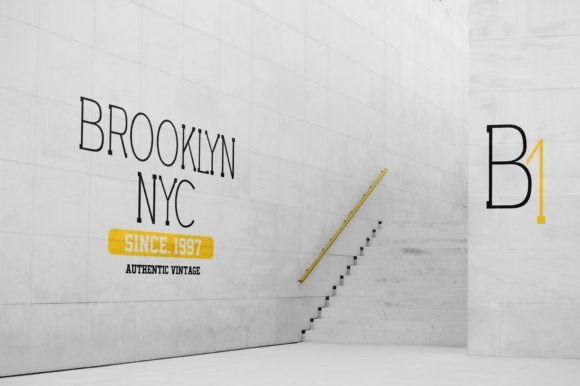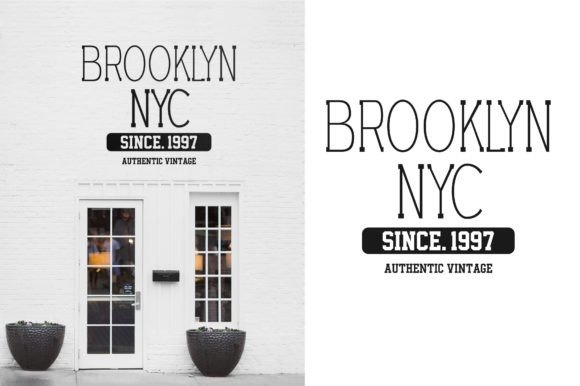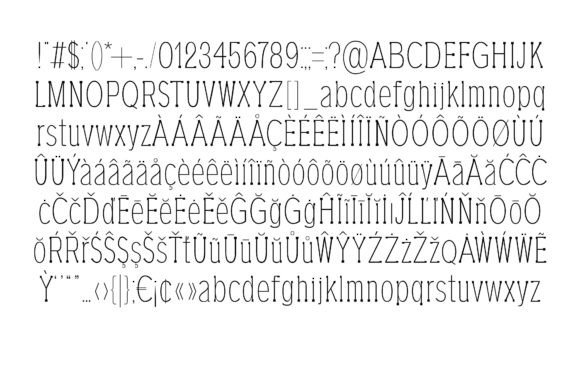
Brooklyn
Brooklyn: A Beautiful and Delicate Slab Serif Typeface
Brooklyn is a beautiful, delicate, and thin slab serif typeface. Its delicate thin aspect renders it very clean and elegant. It fits really well in various contexts such as packaging design, perfume design, fashion design, magazine covers, large-scale titles, and more. Use it confidently in your creation, and you will notice the fresh look it’s able to add to your designs.
Key Features of Brooklyn
• Delicate Design: Offers a thin and elegant look suitable for sophisticated applications.
• Slab Serif Structure: Features subtle serifs that add refinement and style.
• Clean Aesthetic: Brings a fresh and modern feel to designs.
• Versatile Application: Ideal for both print and digital media projects in various industries.
Ideal Uses for Brooklyn
Brooklyn’s unique characteristics make it particularly well-suited for:
When incorporating Brooklyn into your designs, consider these tips:
• Use for headlines or large text to showcase its delicate features.
• Experiment with different sizes to highlight the font’s thin and elegant style.
• Consider pairing with bolder sans-serif fonts for body text to create contrast.
• Utilize its clean aesthetic to create sophisticated and modern designs.
Brooklyn is an excellent choice for designers looking to add a beautiful and delicate slab serif font to their typographic toolkit. Its ability to bring elegance and freshness to various design projects makes it stand out in the world of typography. Whether you’re working on packaging for luxury products, creating magazine layouts, or developing branding for fashion labels, Brooklyn offers the perfect blend of sophistication and modernity.
Furthermore, Brooklyn’s unique design allows it to shine in various contexts. From perfume labels to large-scale titles, this font can elevate your projects with its distinctive style. Its thin yet readable appearance works particularly well in designs that aim to convey a sense of refinement and contemporary elegance.
In conclusion, Brooklyn is a font that truly captures the essence of delicate beauty in modern typography. Its versatility across different industries showcases its adaptability to various design needs. For those looking to add a touch of sophisticated charm to their work, Brooklyn can enhance themed creations with its distinctive style. It’s the perfect choice for designers seeking to make a refined, stylish impact across a wide range of creative projects in industries that value elegance and modernity.